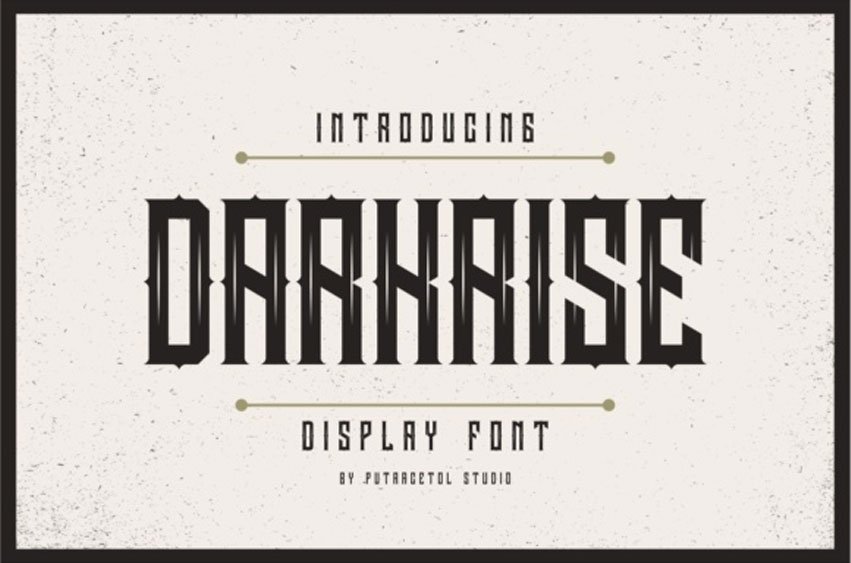
Darkrise Font is a dynamic, metal, and bold display typeface.
It has a biker style with sharp edges. Great for logos, titles, headlines, labels, and much more!
Darkrise Font is a dynamic, metal, and bold display typeface.
It has a biker style with sharp edges. Great for logos, titles, headlines, labels, and much more!